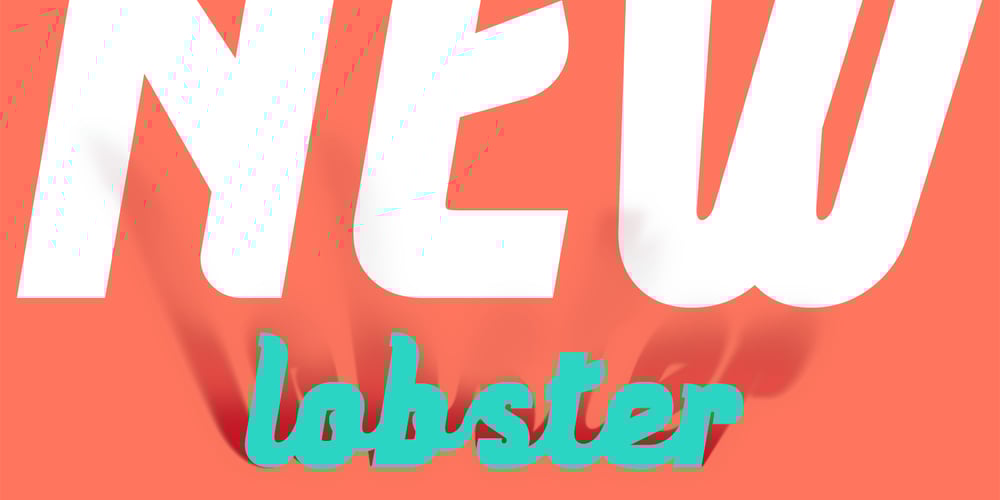
New Lobster Font Family was designed by Alex Etewut and published by Etewut. New Lobster contains 1 styles and family package options. New lobster makes your text look fancy. • alternative packs 1 and 2 • extended latin • connected script and disconnected italic